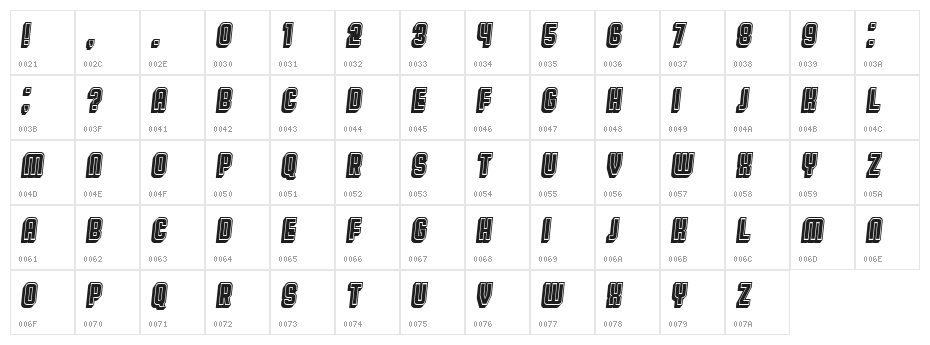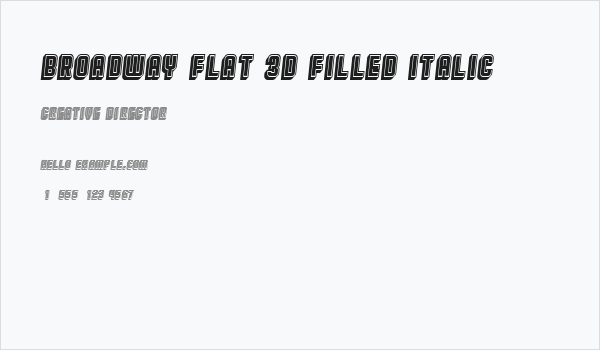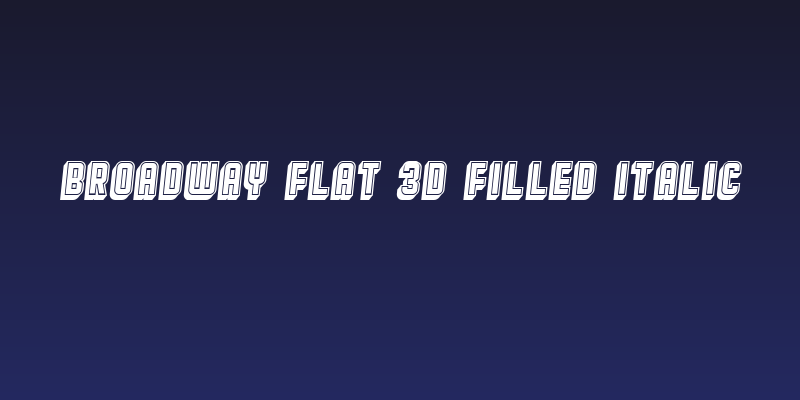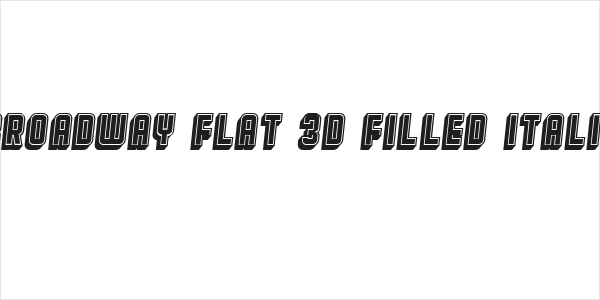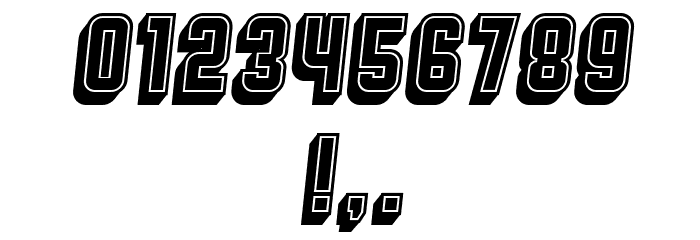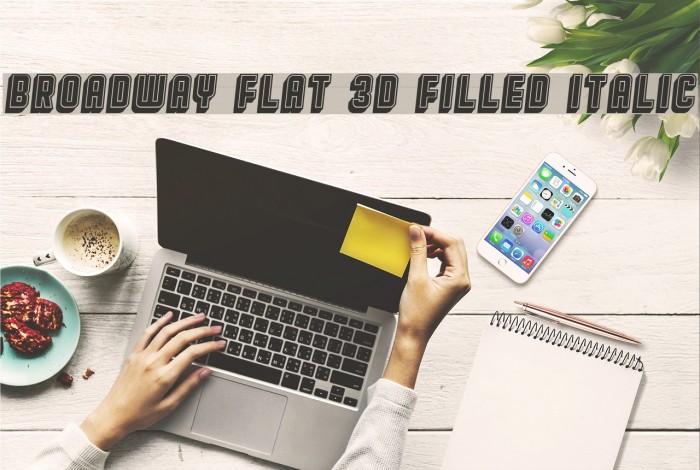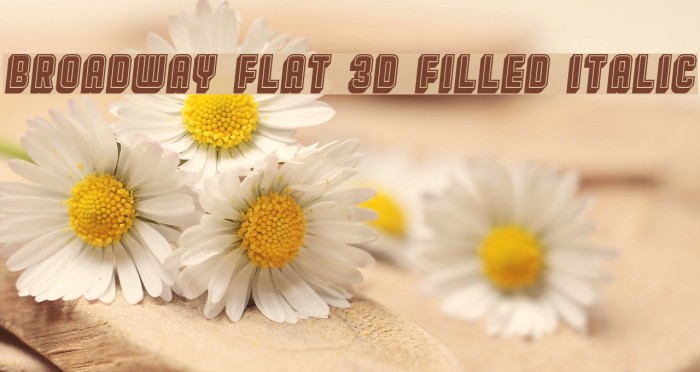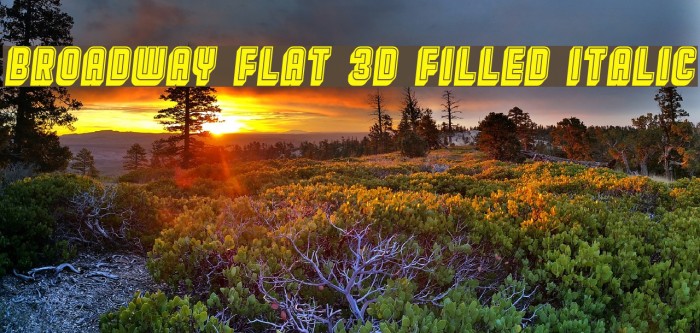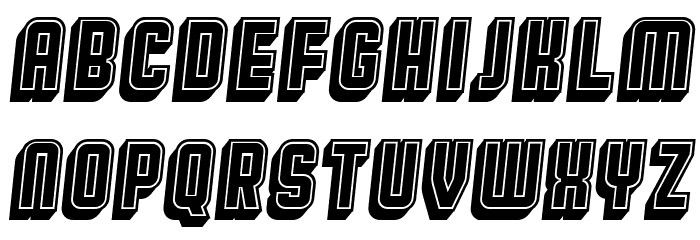
Broadway Flat 3D Filled Italic Font
Broadway Flat 3D Filled Italic Description
This font features a bold, three-dimensional appearance with a flat, filled design that gives it a striking and impactful look. The letters are italicized, adding a dynamic and forward-leaning effect. The geometric shapes and clean lines create a modern and stylish aesthetic, making it ideal for attention-grabbing headlines and titles. The uppercase and lowercase letters maintain a consistent style, with numerals and special characters designed to match the overall theme. The font's distinct 3D effect is achieved through a clever use of shading and perspective, enhancing its visual appeal.
| Proposed Projects | Ideal for posters, signage, branding, and any project requiring a bold and modern statement. |